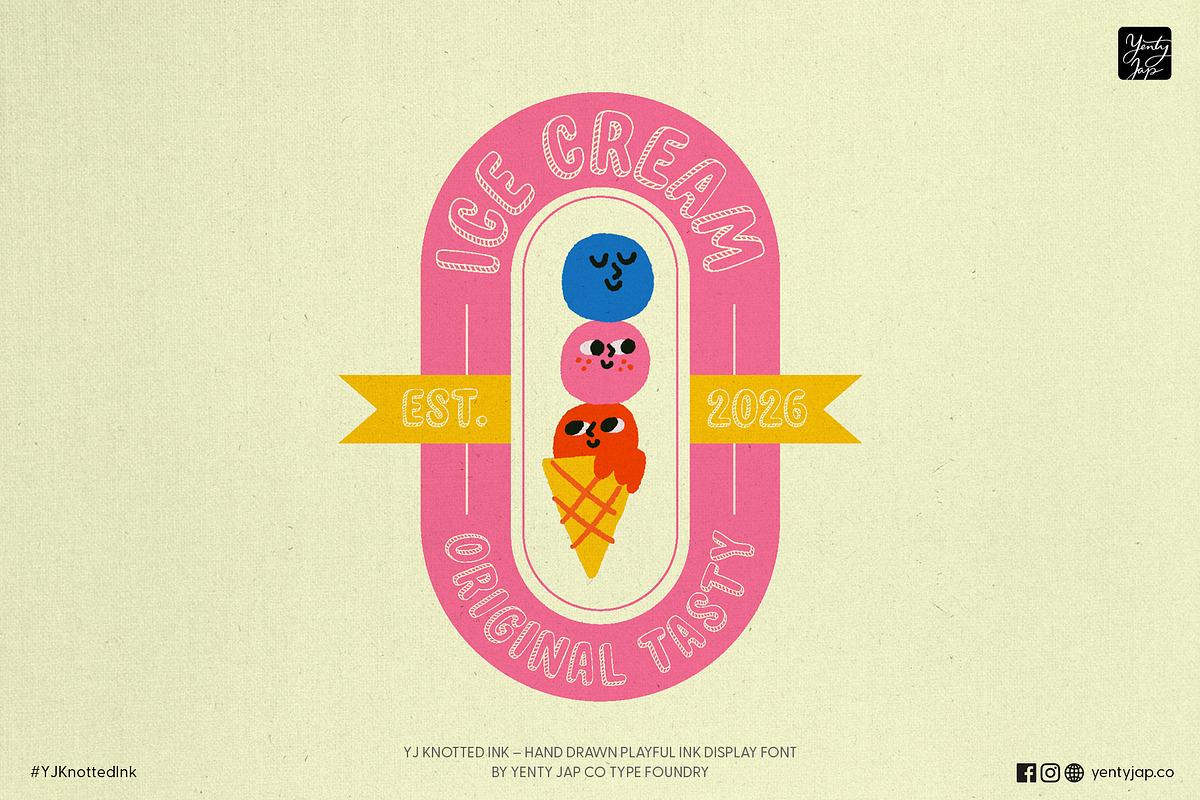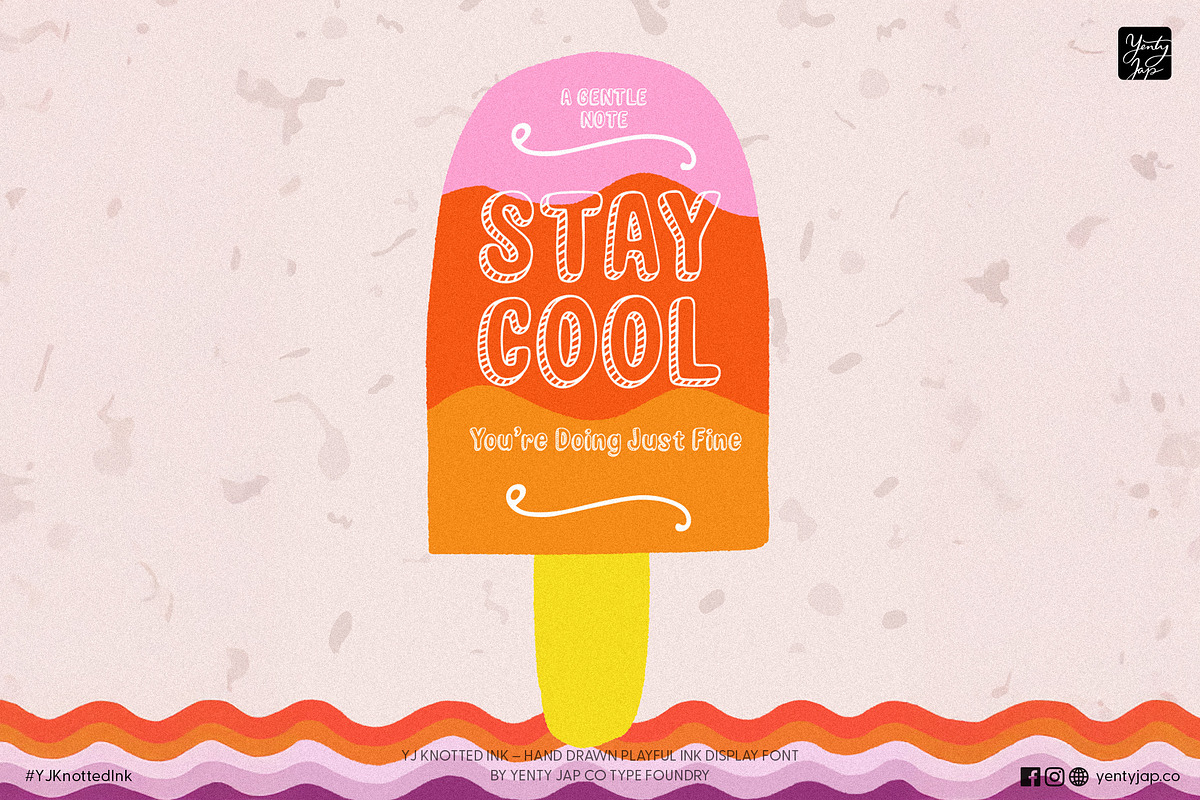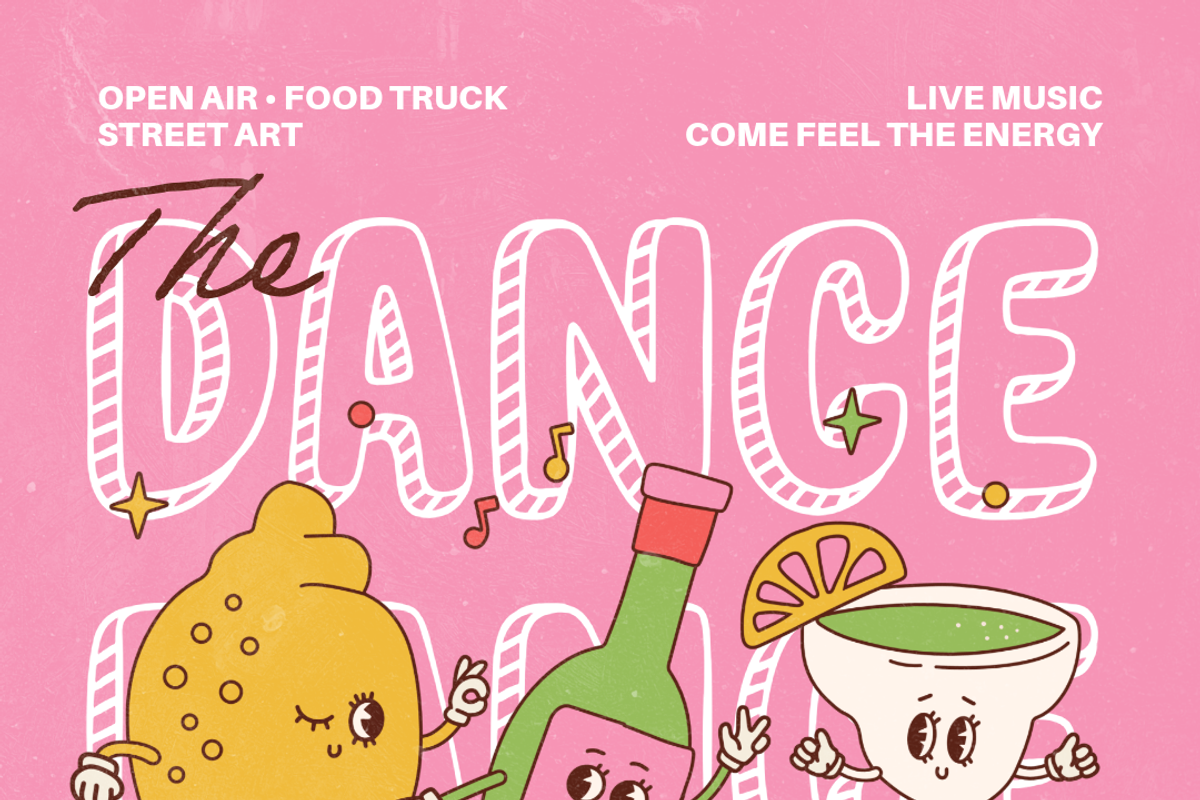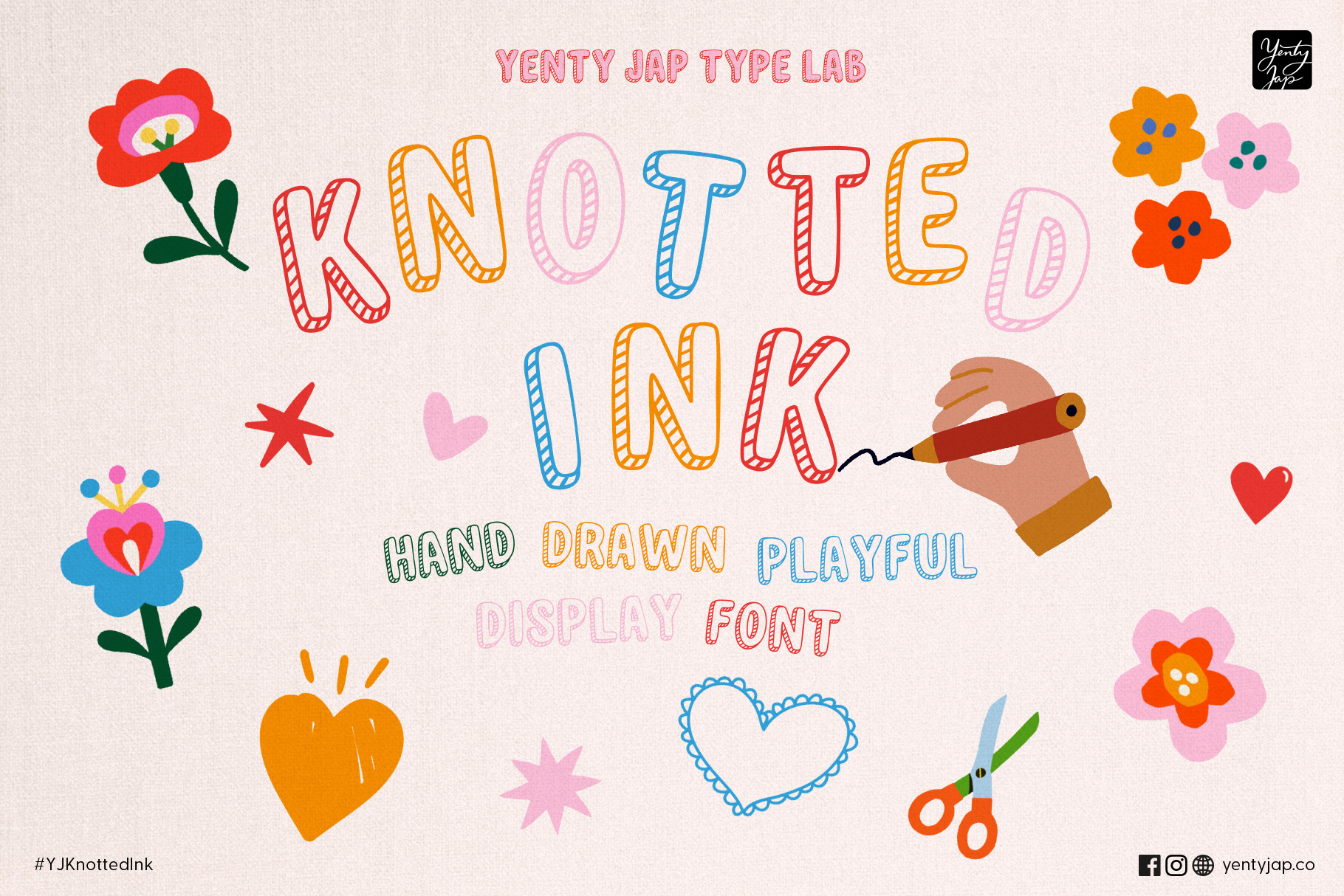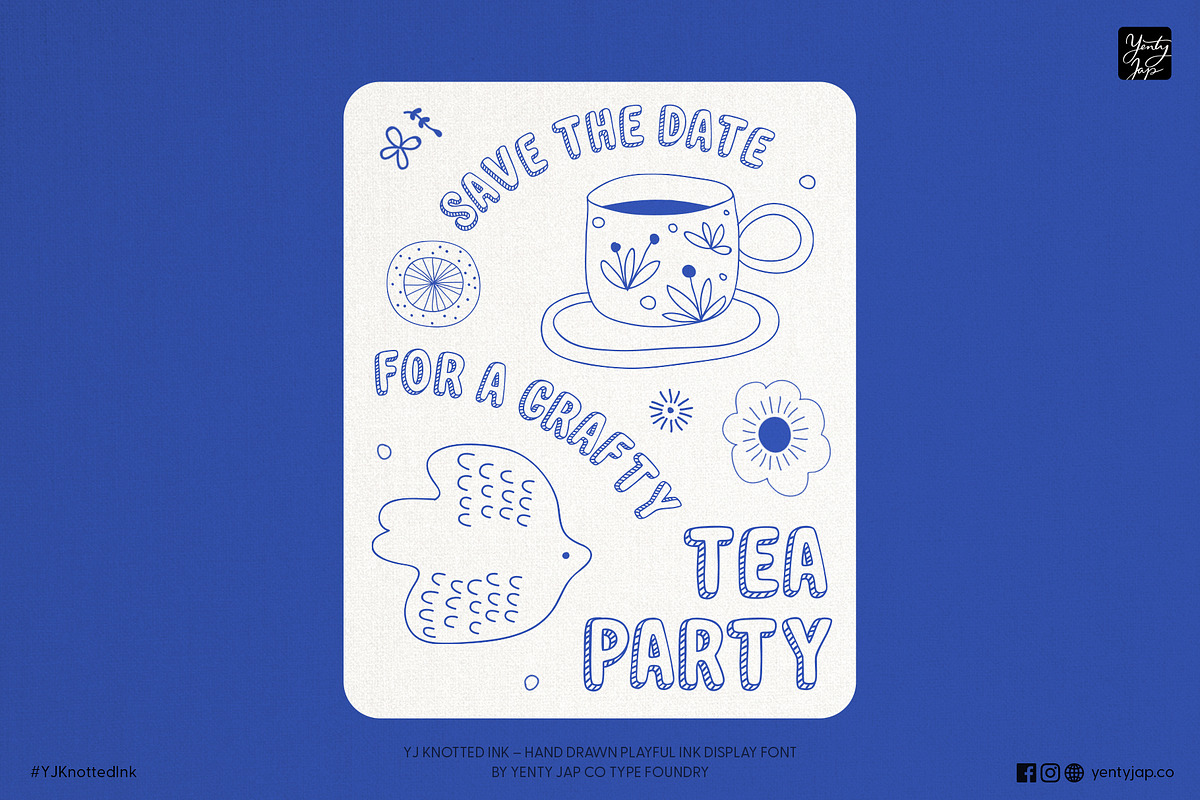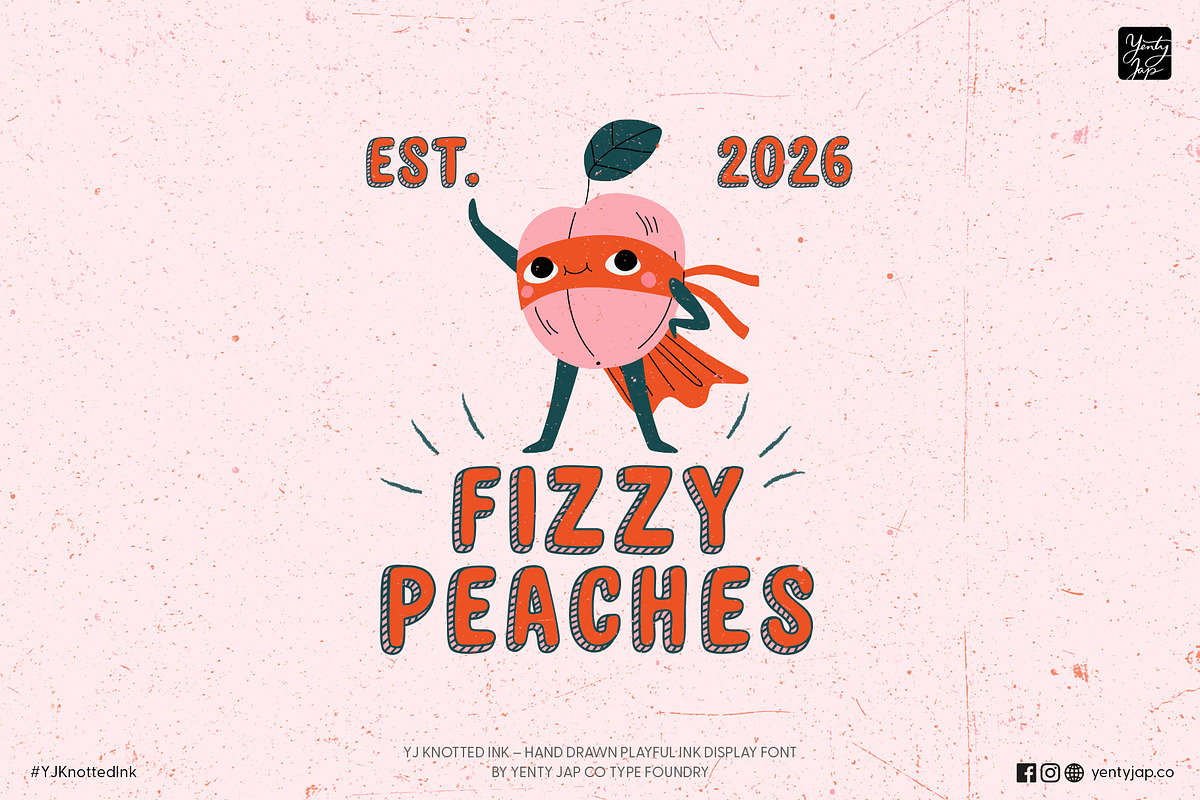
YJ Knotted Ink Font
YJ Knotted Ink is a bold, hand-drawn display font that feels like ink on paper and a friendly wave hello.
It’s imperfect in the best way — rounded, textured, and full of personality — like something made slowly, by hand, with care.
This font was designed for creators who love things that feel real, handmade, and approachable. The knotted ink texture gives every letter a cozy, stamped look, making your words feel warm instead of loud, playful instead of polished.
YJ Knotted Ink shines in:
Handmade product branding (candles, soaps, skincare, packaging)
Etsy shops and small business logos
Labels, stamps, and thank-you cards
Social media posts, reels, and quote graphics
Posters, signs, and playful headlines
It’s easy to read, full of charm, and brings a gentle smile wherever it goes — like a little hug in font form.
If your brand believes in made by hand, packed with care, and shared with heart, YJ Knotted Ink will feel right at home.